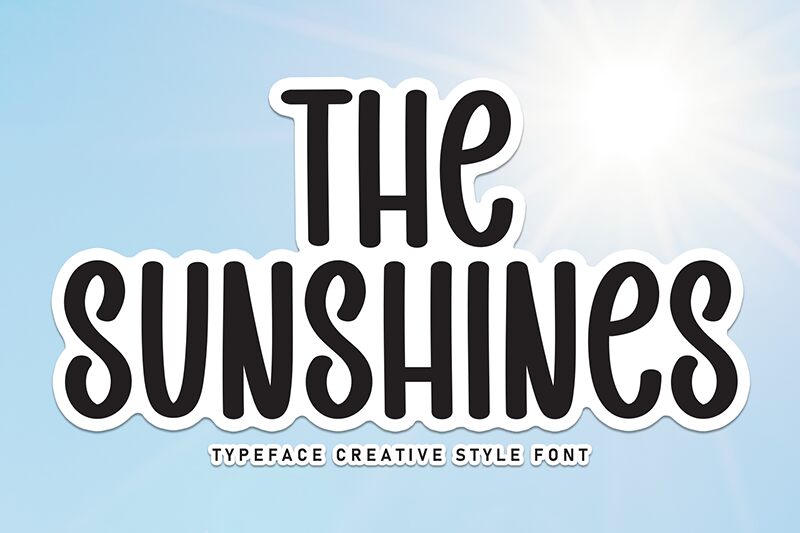
The Sunshines
The Sunshines font by Scratchones is a free handwritten font of condensed proportions. The slightly vintage vibes mix with the artistic and cheerful letter designs making this font ideal for projects that appeal to a wide public audience. Casual and wavy shapes are obvious in this display type.
Use The Sunshines font for book covers, storybooks designs, picture books, fairy tale books, novels, schools-related projects, stationery items design, comic covers art, children’s toys branding/advertising projects such as puzzles or board games packaging design…